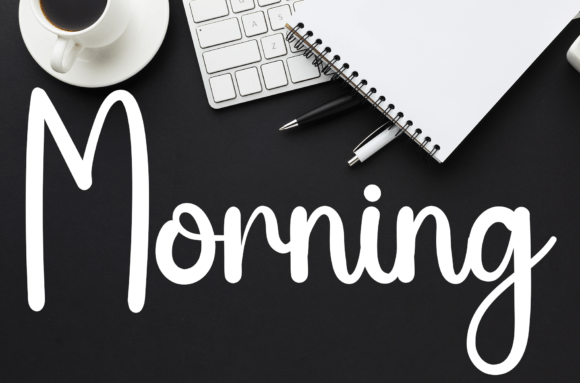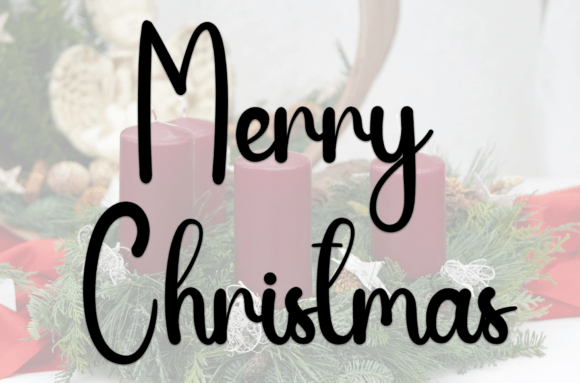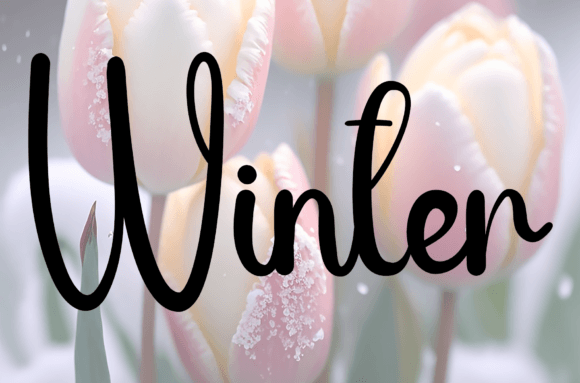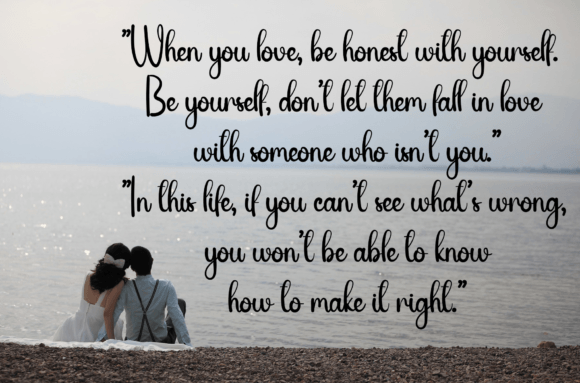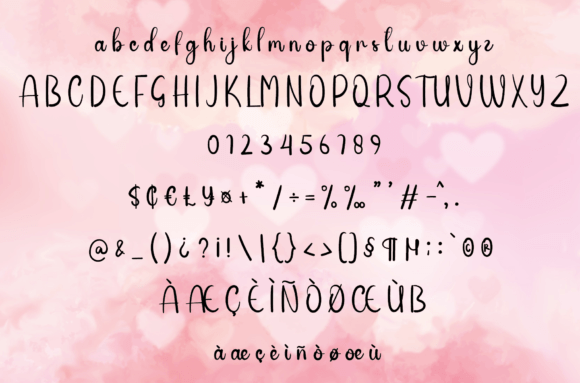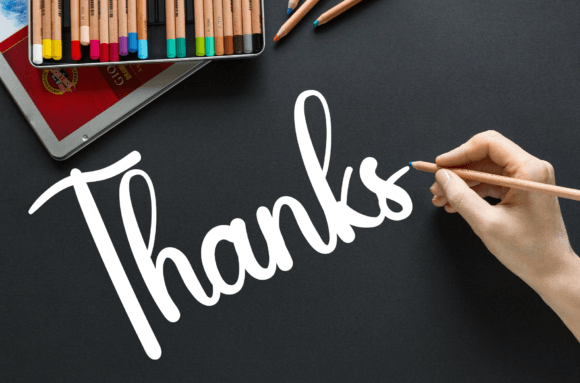
Brown Font: The Sweet and Friendly Handwritten Font for Your Creative Projects
Are you looking for a font that can add a touch of warmth and personality to your designs? Look no further than Brown Font! This sweet and friendly handwritten font is perfect for creating wedding invitations, cards, and other designs that require a fun and relaxed vibe.
What Makes Brown Font So Special?
Brown Font is a beautifully crafted handwritten font that exudes a sense of warmth and friendliness. Its cute and relaxed style makes it ideal for a wide range of creative projects, from wedding invitations and cards to social media graphics and blog posts.
One of the things that sets Brown Font apart from other fonts is its unique and distinctive style. The font features a charming, handwritten look that is both elegant and approachable. It’s perfect for designers and crafters who want to add a personal touch to their work.
The Benefits of Using Brown Font
So why should you choose Brown Font for your next project? Here are just a few benefits of using this amazing font:
- Perfect for wedding invitations and cards: Brown Font is a popular choice for wedding invitations and cards because of its romantic and whimsical feel.
- Adds a personal touch: The handwritten style of Brown Font gives your designs a personal and human touch that can help you connect with your audience.
- Easy to read: Despite its decorative style, Brown Font is easy to read and understand, making it perfect for body text and headings.
- Versatile: Brown Font can be used for a wide range of creative projects, from digital designs to print materials.
How to Use Brown Font in Your Designs
Using Brown Font in your designs is easy! Here are a few tips to get you started:
- Pair it with other fonts: Brown Font looks great when paired with other fonts, such as sans-serif fonts like Arial or Helvetica.
- Use it for headings and titles: Brown Font is perfect for headings and titles, where its decorative style can really shine.
- Add some texture: Consider adding some texture to your design to give it a more organic and handmade feel.
Brown Font: The Perfect Choice for Designers and Crafters
Whether you’re a designer or crafter, Brown Font is the perfect choice for your next project. Its unique and distinctive style makes it stand out from other fonts, and its versatility means it can be used for a wide range of creative projects.
So why not give Brown Font a try? With its sweet and friendly style, it’s sure to add a touch of warmth and personality to your designs.
In conclusion, Brown Font is a sweet and friendly handwritten font that is perfect for designers and crafters who want to add a touch of warmth and personality to their designs. Its unique and distinctive style makes it stand out from other fonts, and its versatility means it can be used for a wide range of creative projects.
Whether you’re creating wedding invitations, cards, or other designs, Brown Font is the perfect choice. So why not give it a try and see the difference it can make in your designs?